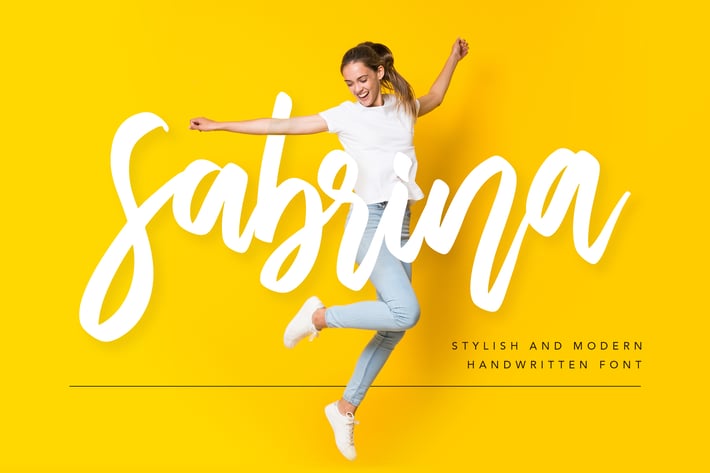
Sabrina Handwritten Font
A stylish and modern handwritten font with an elegant feel. Sabrina is perfect for display projects such as a quoted text, wallpaper text, logo, presentation, and product packaging. It's also perfect for wedding, fashion and fresh themed - or a stylish text overlay to any background image.
Main Features:
+ Uppercase & Lowercase letters
+ Full set of Lowercase alternates
+ Numbering and Punctuation
+ Ligatures